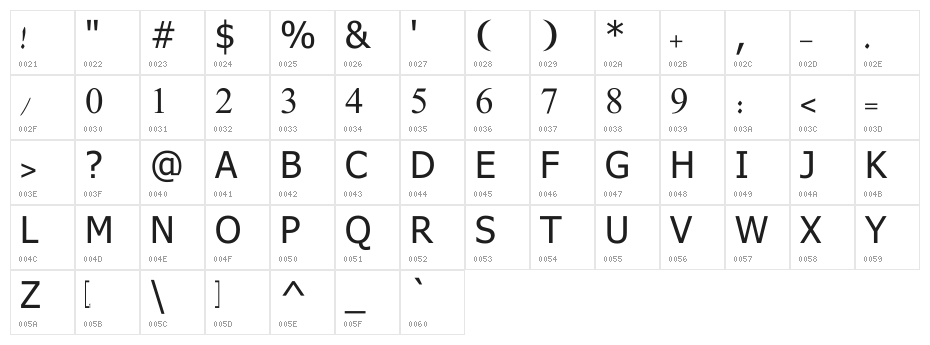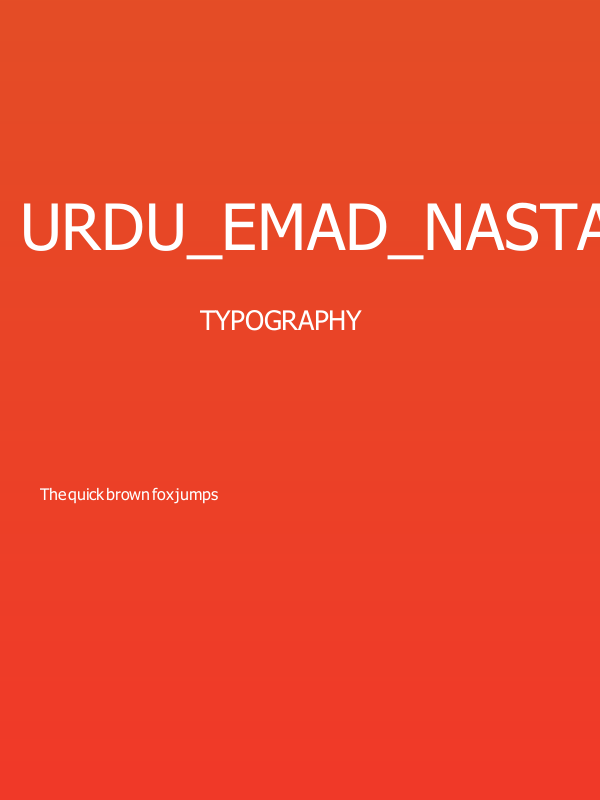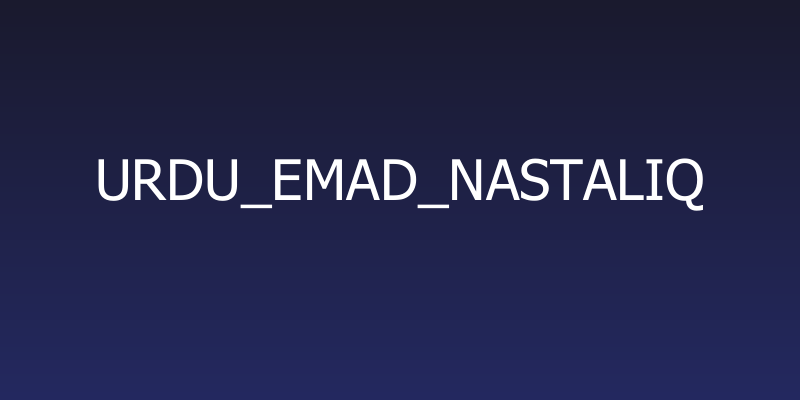
Urdu_Emad_Nastaliq Font
Urdu_Emad_Nastaliq Description
This font features a clean and modern sans-serif design, characterized by its simplicity and readability. The letters are evenly spaced with a consistent stroke width, providing a balanced and harmonious appearance. The uppercase letters are bold and assertive, while the lowercase letters maintain a friendly and approachable feel. The numerals are clear and distinct, making them easily legible. Special characters are well-integrated, ensuring versatility across various applications. The overall design is sleek and professional, suitable for both digital and print media.